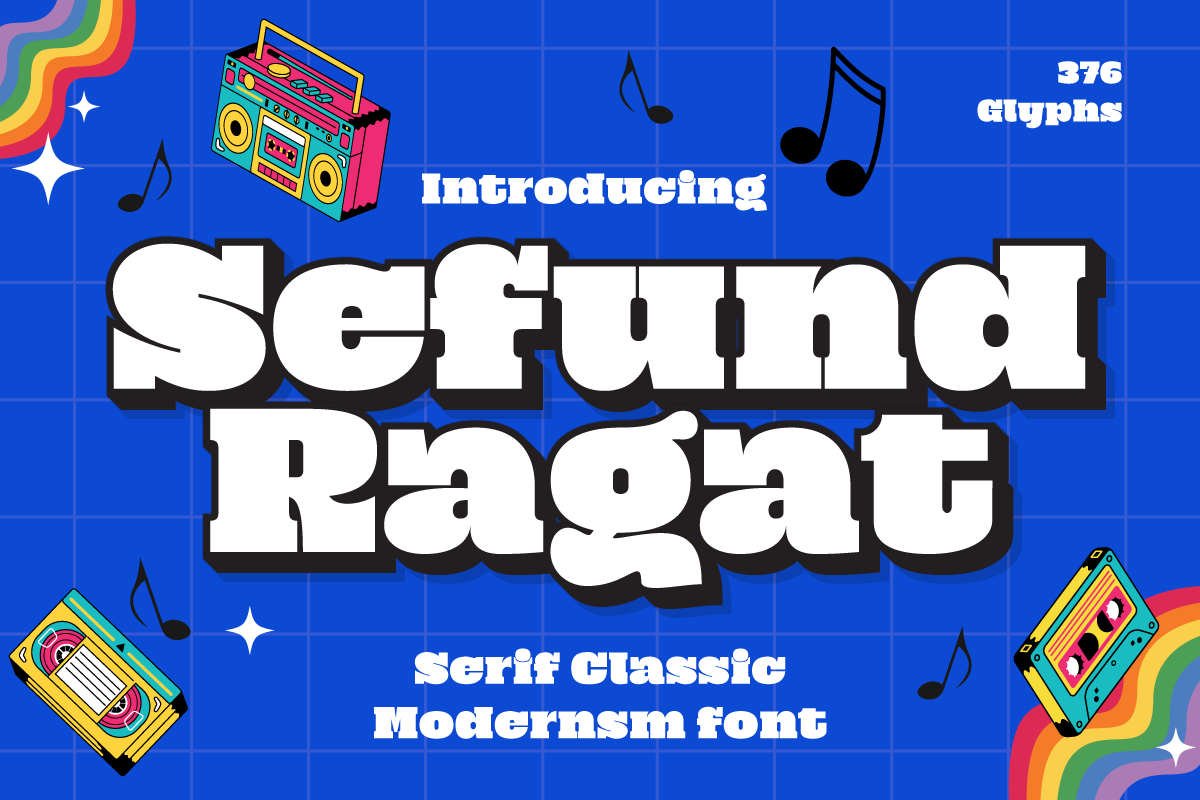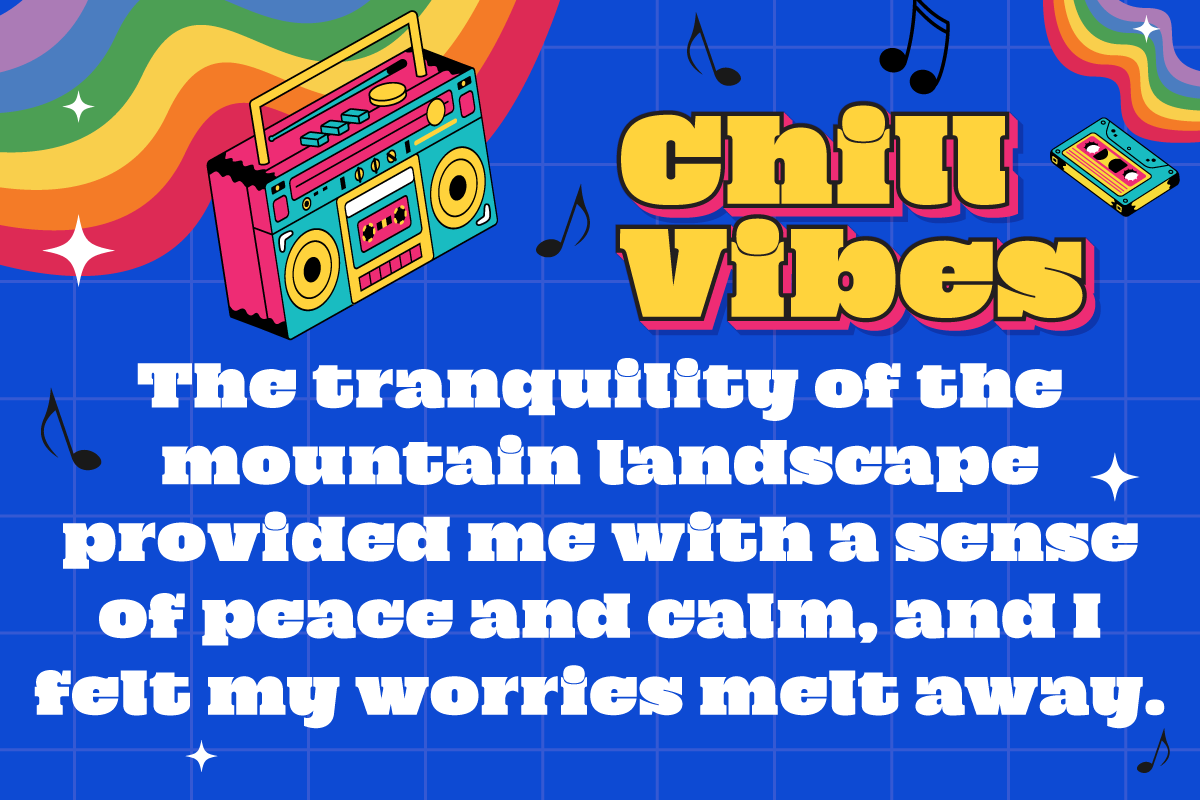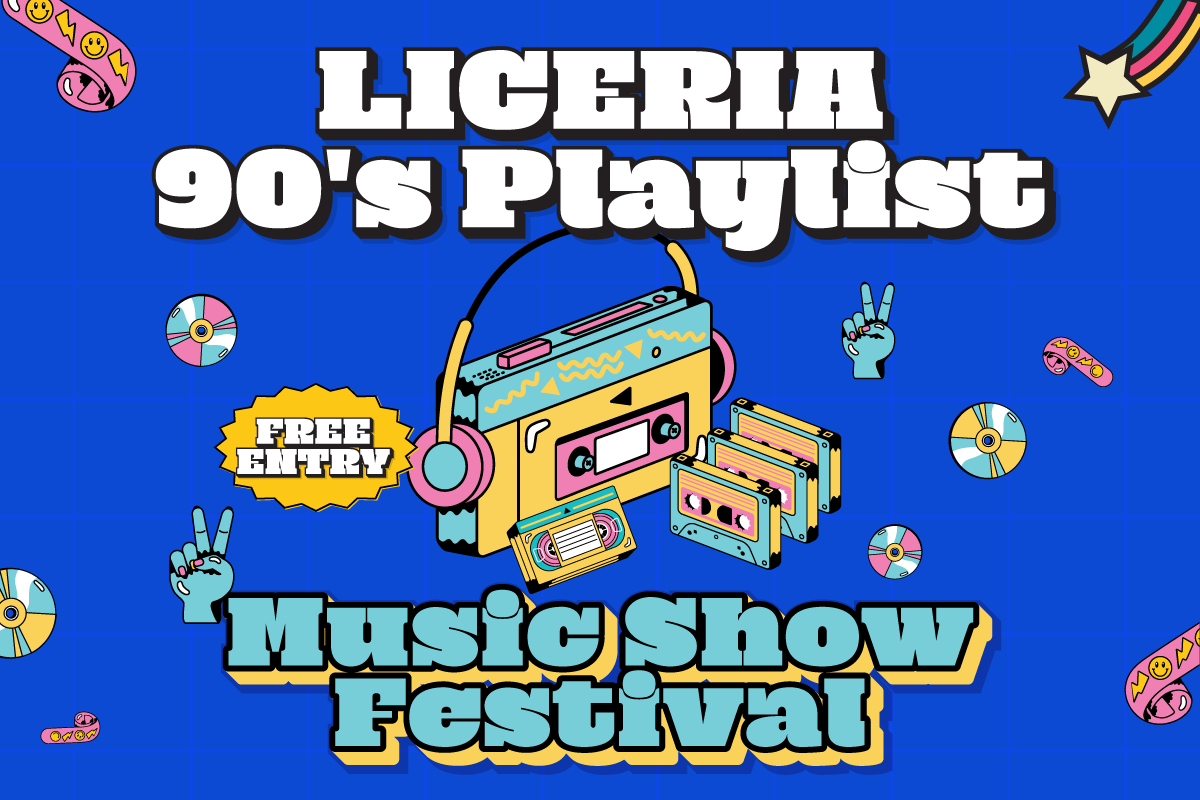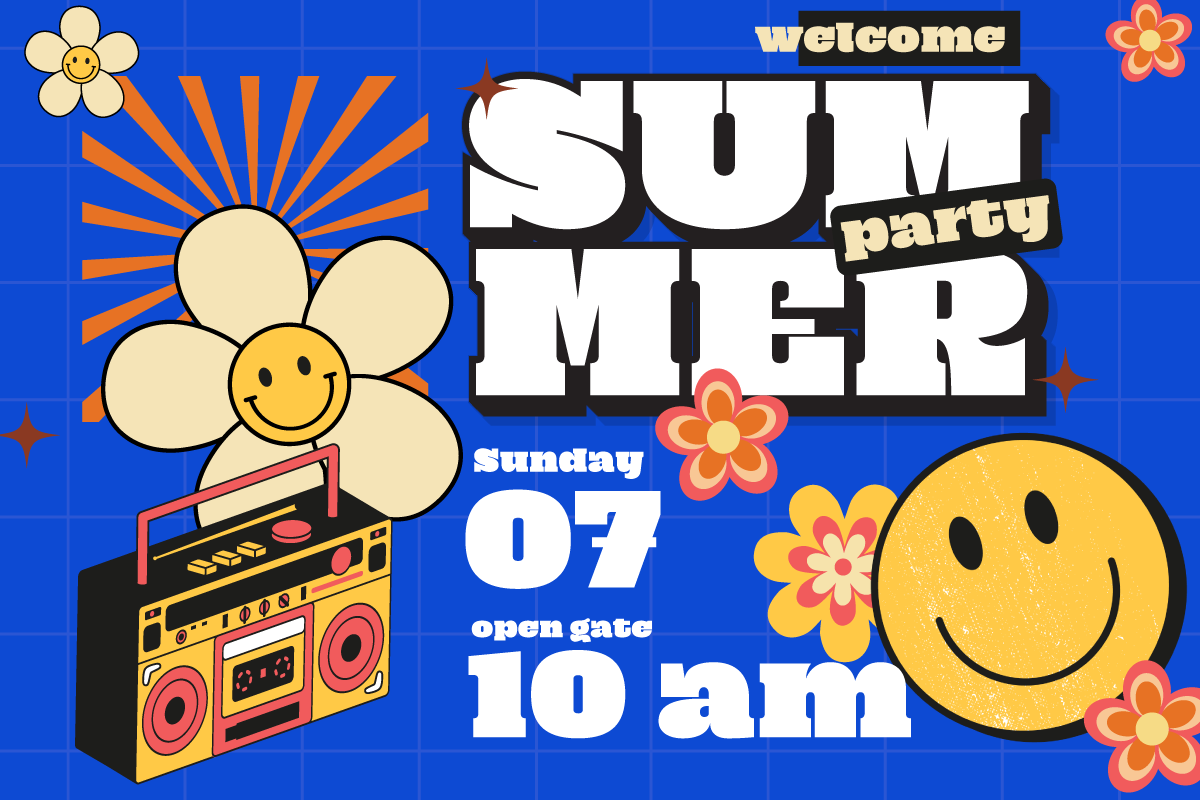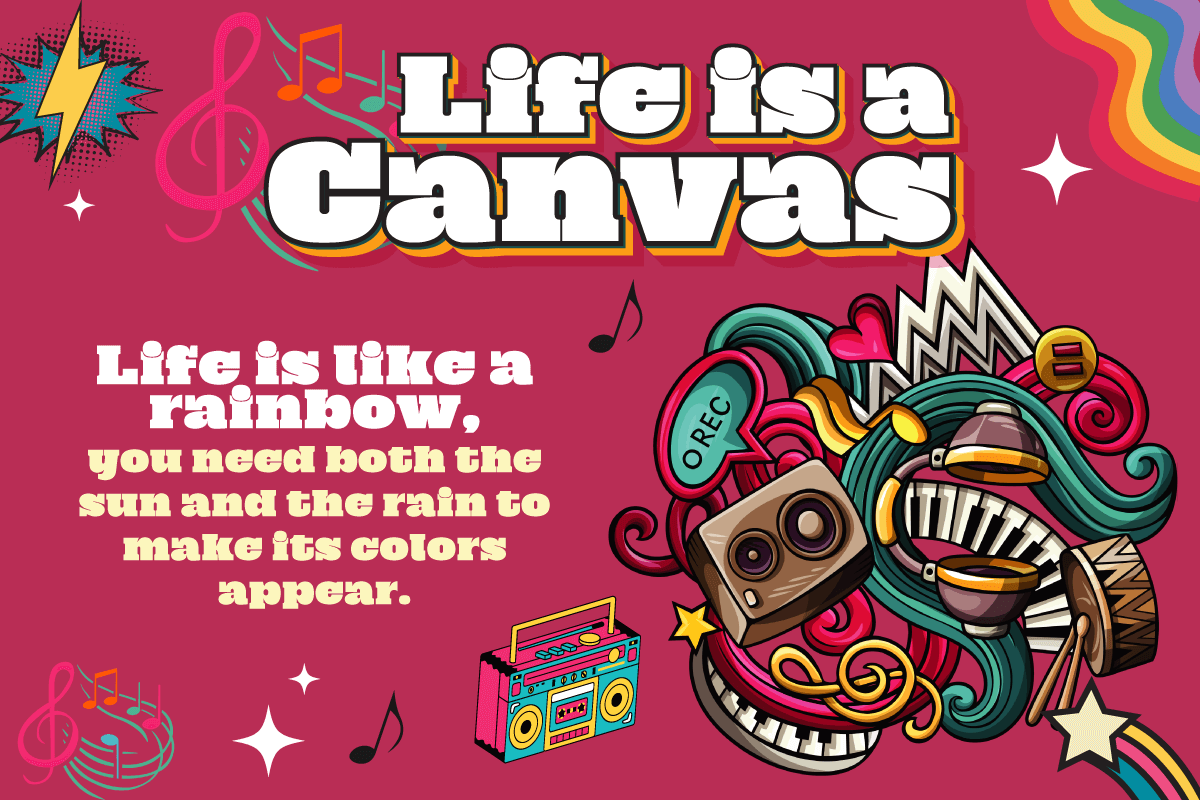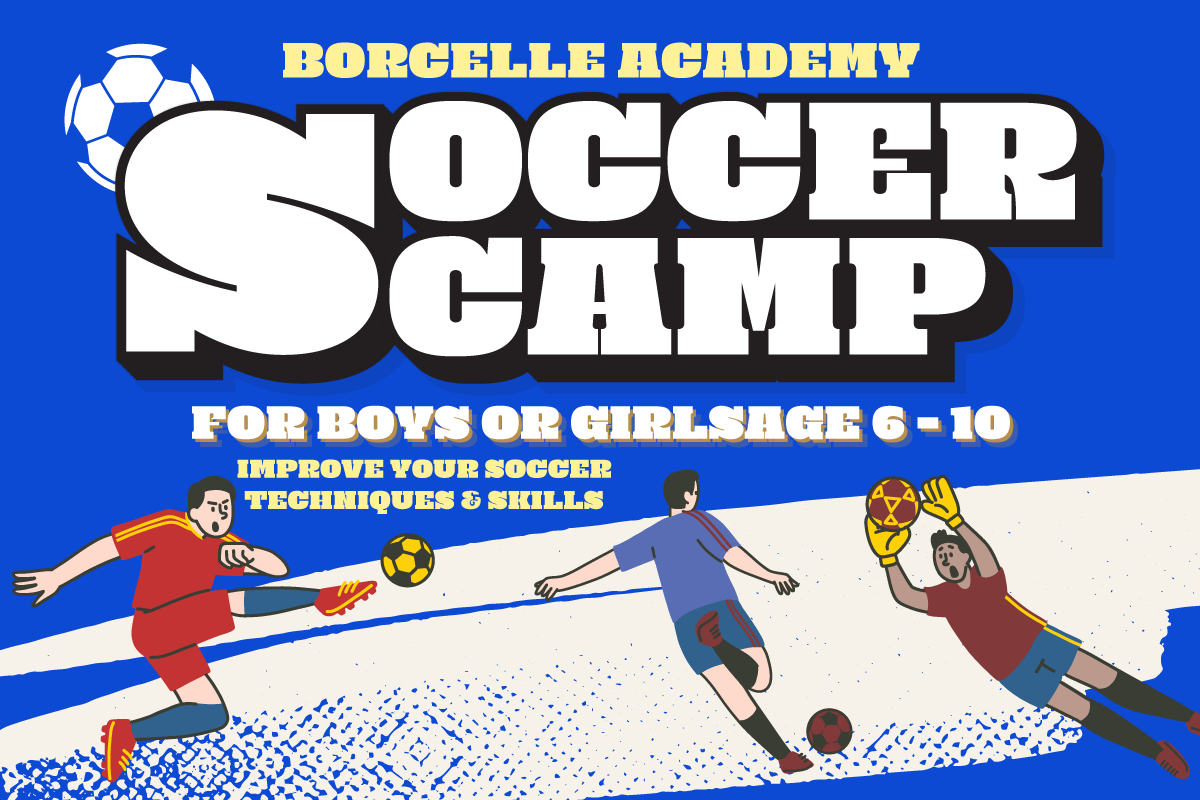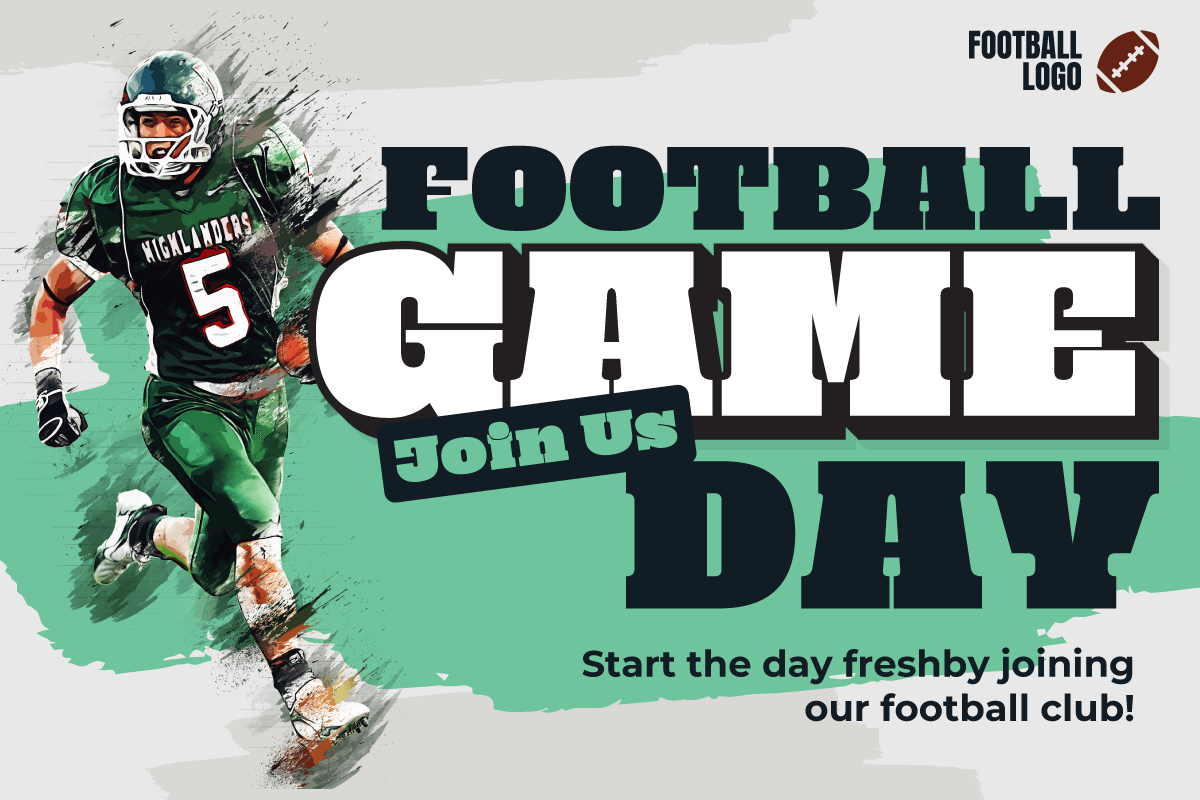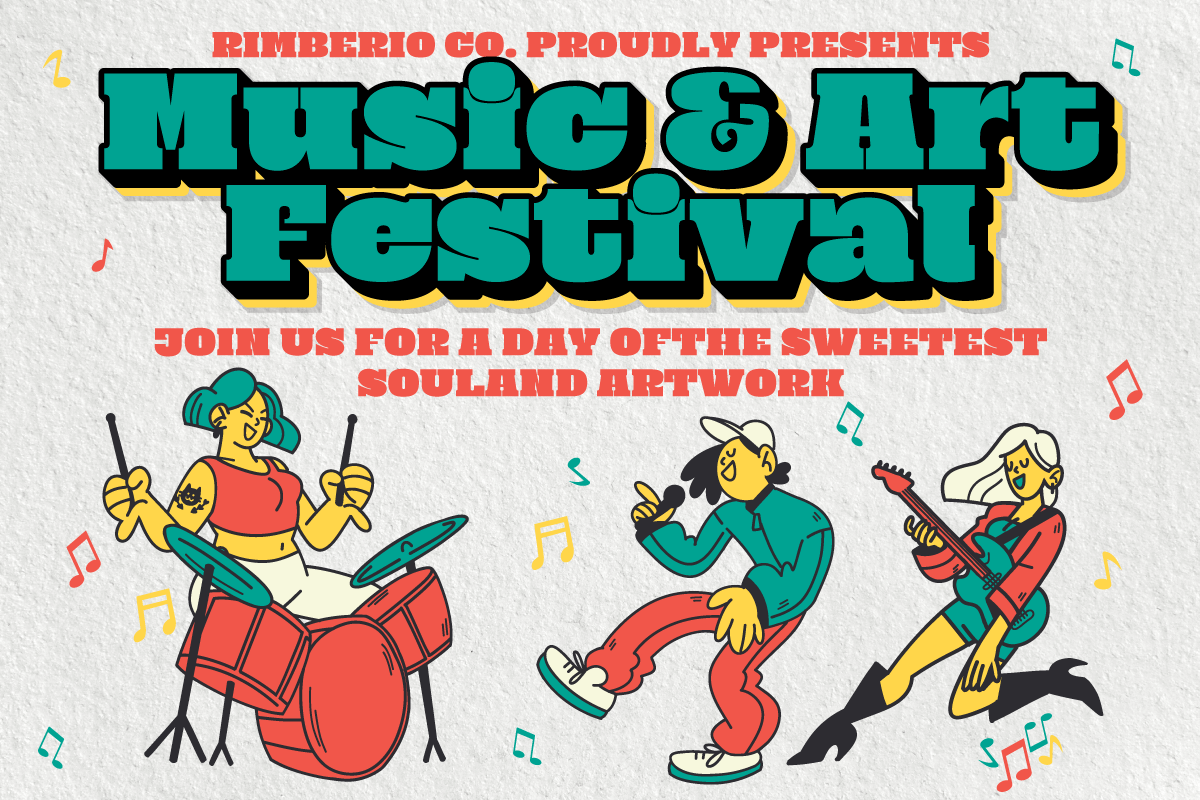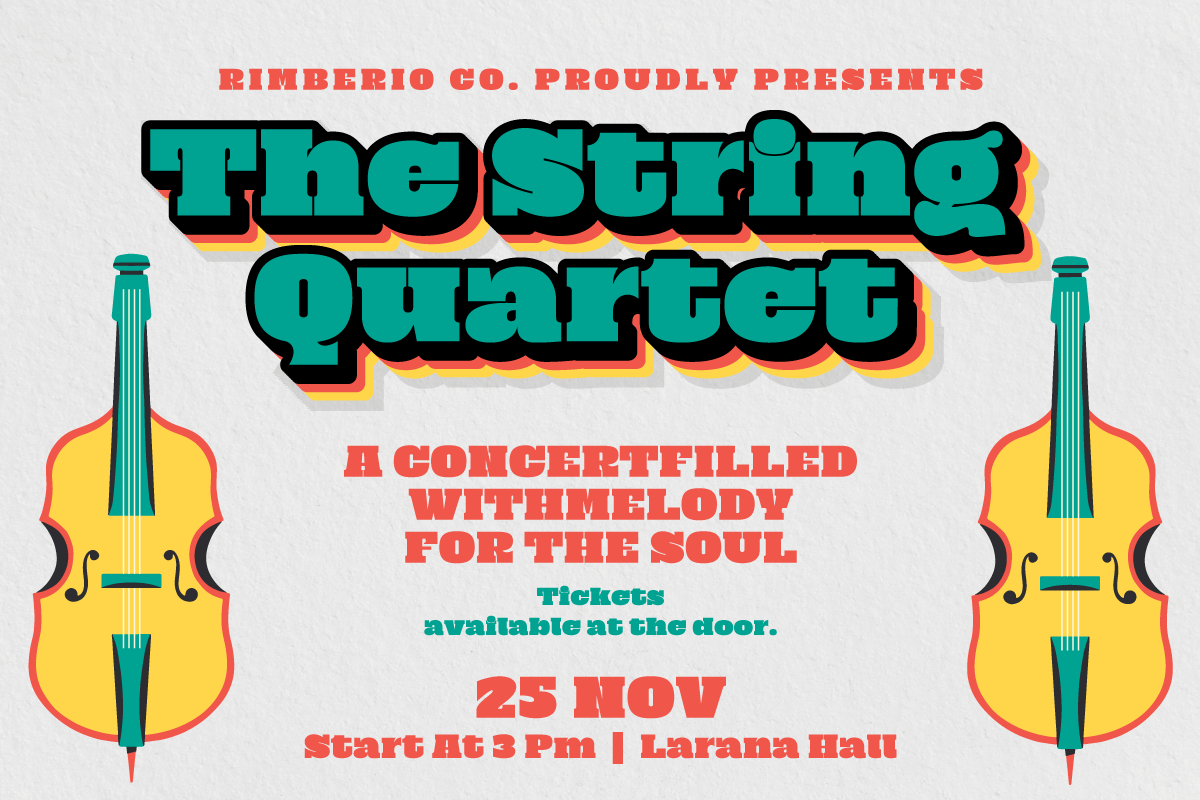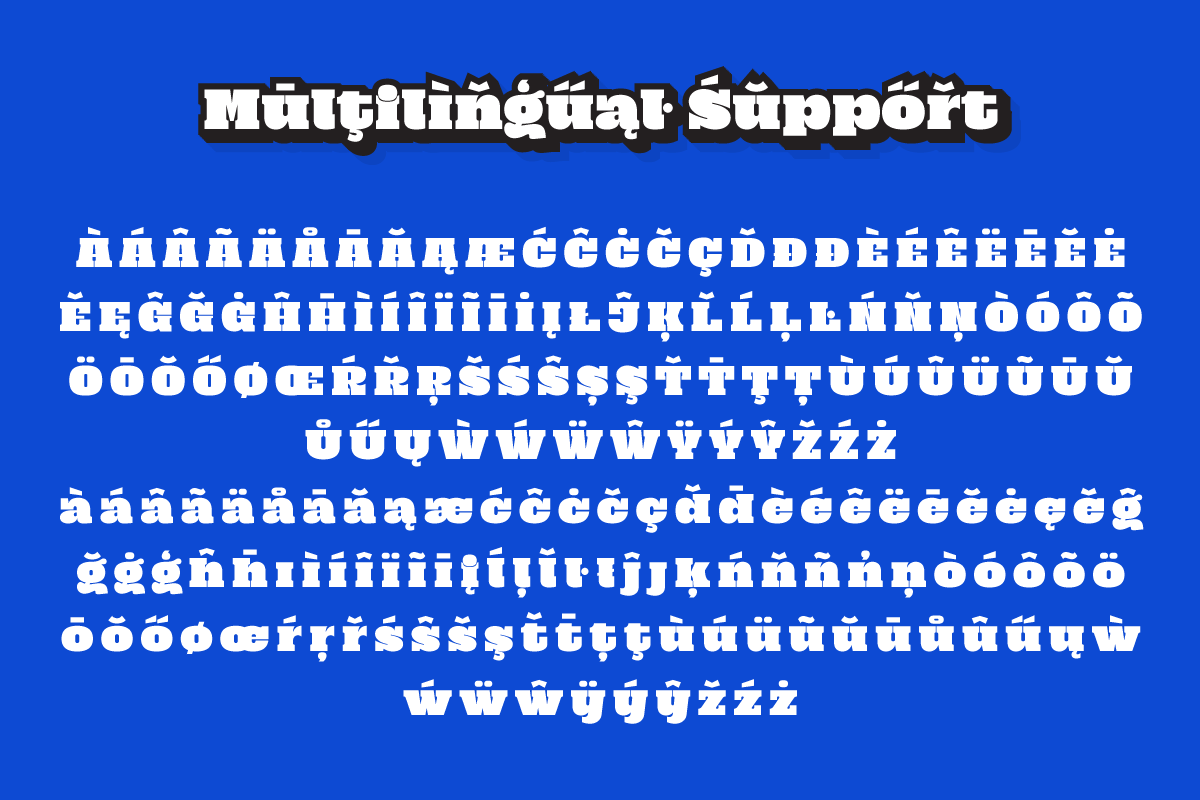
5. Sefund Ragat – Music Branding Font
Sefund Ragat – Music Branding Font
Introducing Sefund Ragat Bold Serif Font – a font that exudes strength and boldness with its thick and powerful serif design. Perfect for making a statement and standing out from the crowd, this font is sure to make an impact on any project.
With its versatility and multilingual support, Sefund Ragat is suitable for various applications such as branding, headlines, packaging, and more. The font comes in various weights to provide more options and flexibility to match the desired tone and mood of the design.
Incorporating Sefund Ragat into your design will elevate it to the next level, conveying a sense of authority and confidence to your audience. Don’t settle for ordinary, choose Sefund Ragat Bold Serif Font for your next project and make a bold statement.